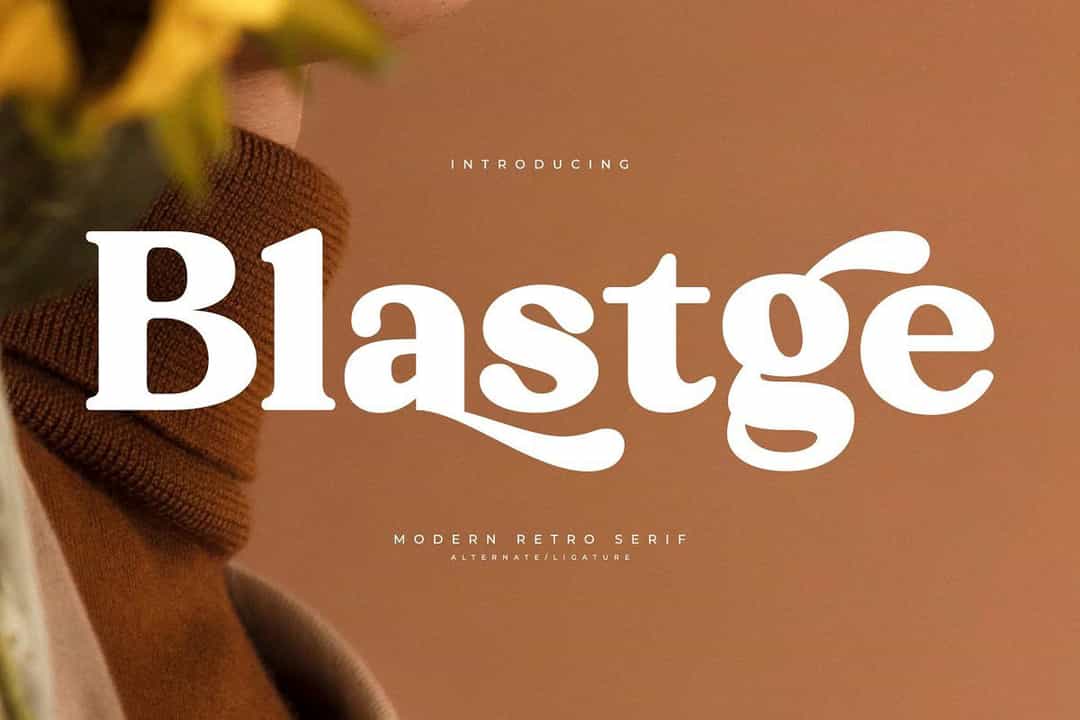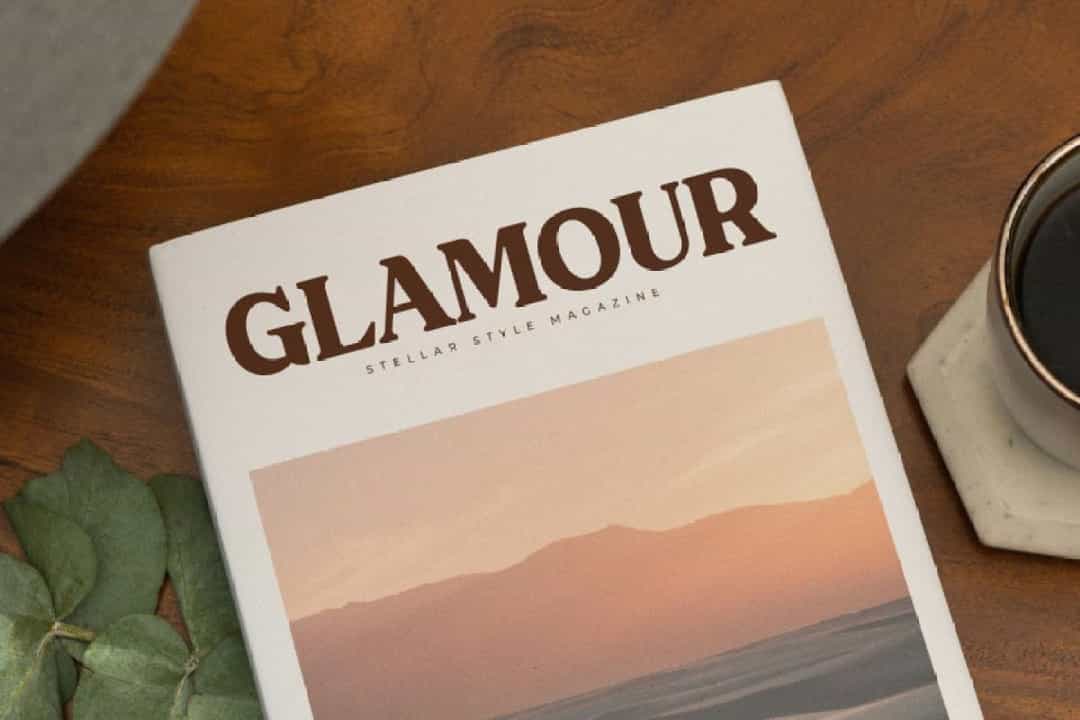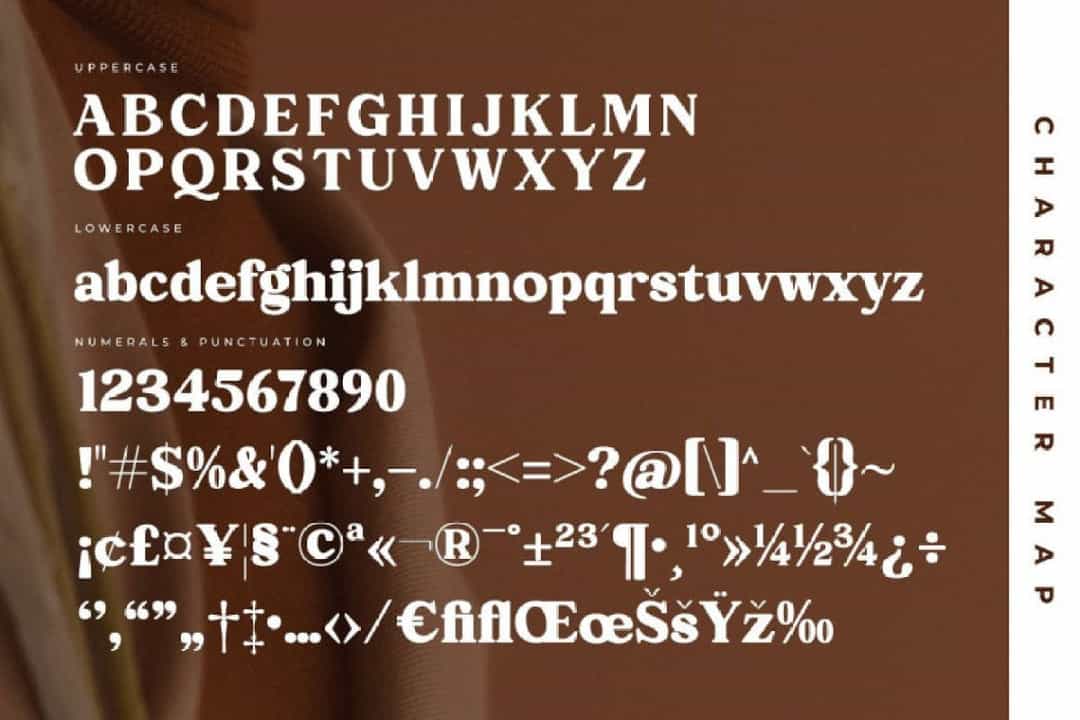
Blastge is an elegant and fashionable serif typeface that exudes sophistication with modern flair. With its smooth lines and well-balanced proportions, Blastge makes an impactful statement in editorial designs, logos, branding, or signage projects – elevating any project by adding elegance and professionalism.